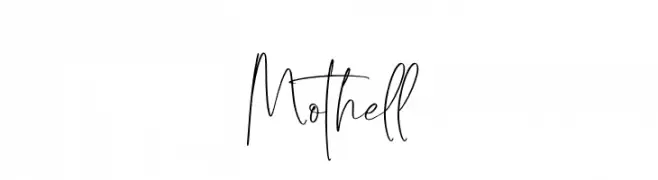
A whimsical, handwritten font with flowing, delicate strokes and a playful style.
A dynamic and expressive handwritten font with fluid strokes and playful elegance.
An elegant script font with flowing, interconnected letters and decorative flourishes.
A flowing, cursive script font with elegant, connected strokes.
A lively, cursive font with medium contrast and fluid strokes.
A lively, cursive font with elegant loops and a handwritten feel.
A fluid and elegant script font with a handwritten feel.
An elegant and flowing script font with artistic loops and swirls.
A flowing, cursive font with elegant loops and flourishes.
A dynamic and flowing script font with elegant, cursive letterforms.